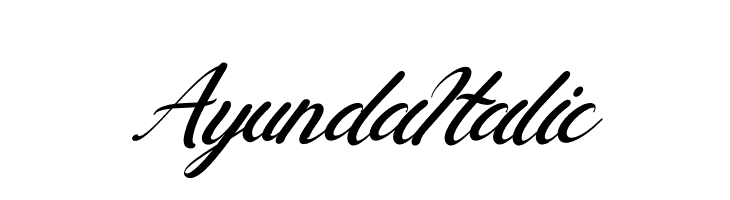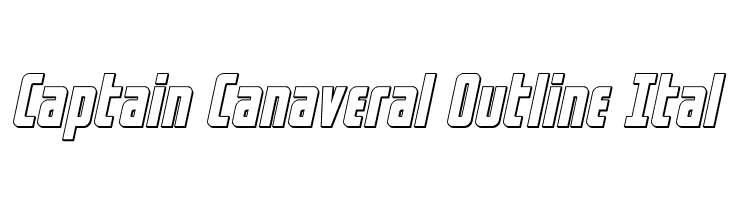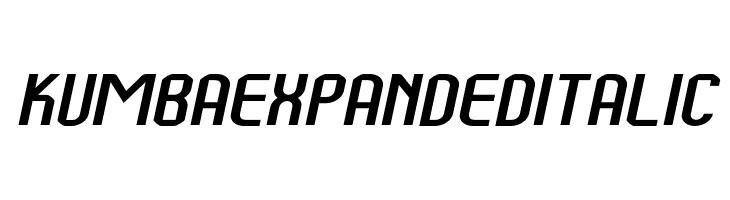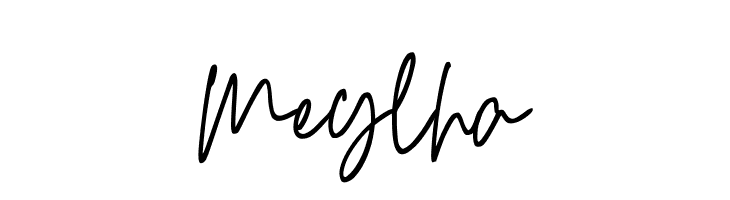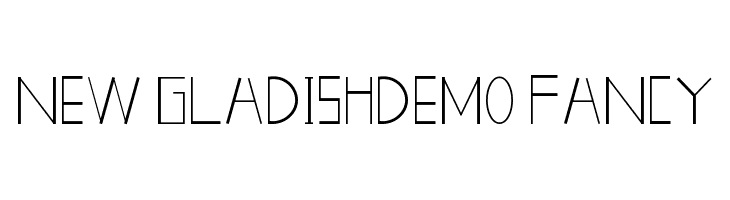
A lively, cursive handwritten font with fluid, connected strokes.
A modern, italicized dashed font with a playful and dynamic style.
A playful, bold, and hand-drawn font with a whimsical style.
A fluid, handwritten font with a natural, cursive style.
A flowing, cursive script font with elegant, interconnected strokes.
A modern, elegant script font with a flowing, italic style.
A dynamic and fluid script font with elegant, flowing letterforms.
A playful handwritten font with smooth, flowing lines and a casual style.
A bold, cursive-style font with dynamic, sweeping strokes and a sense of movement.
A modern, elegant italic font with high contrast and sharp serifs.